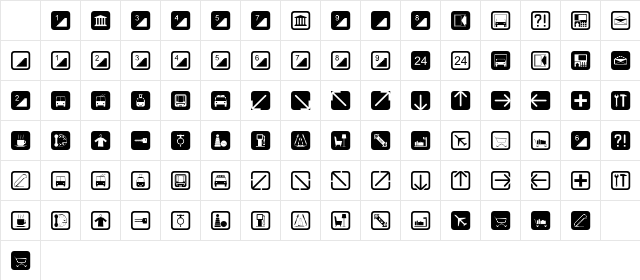
Complete Notice Notice2 glyph index. Displaying only characters natively supported by Notice Notice2 font.
Notice is a composed and adaptable typeface that performs quietly and consistently across a wide range of design contexts.